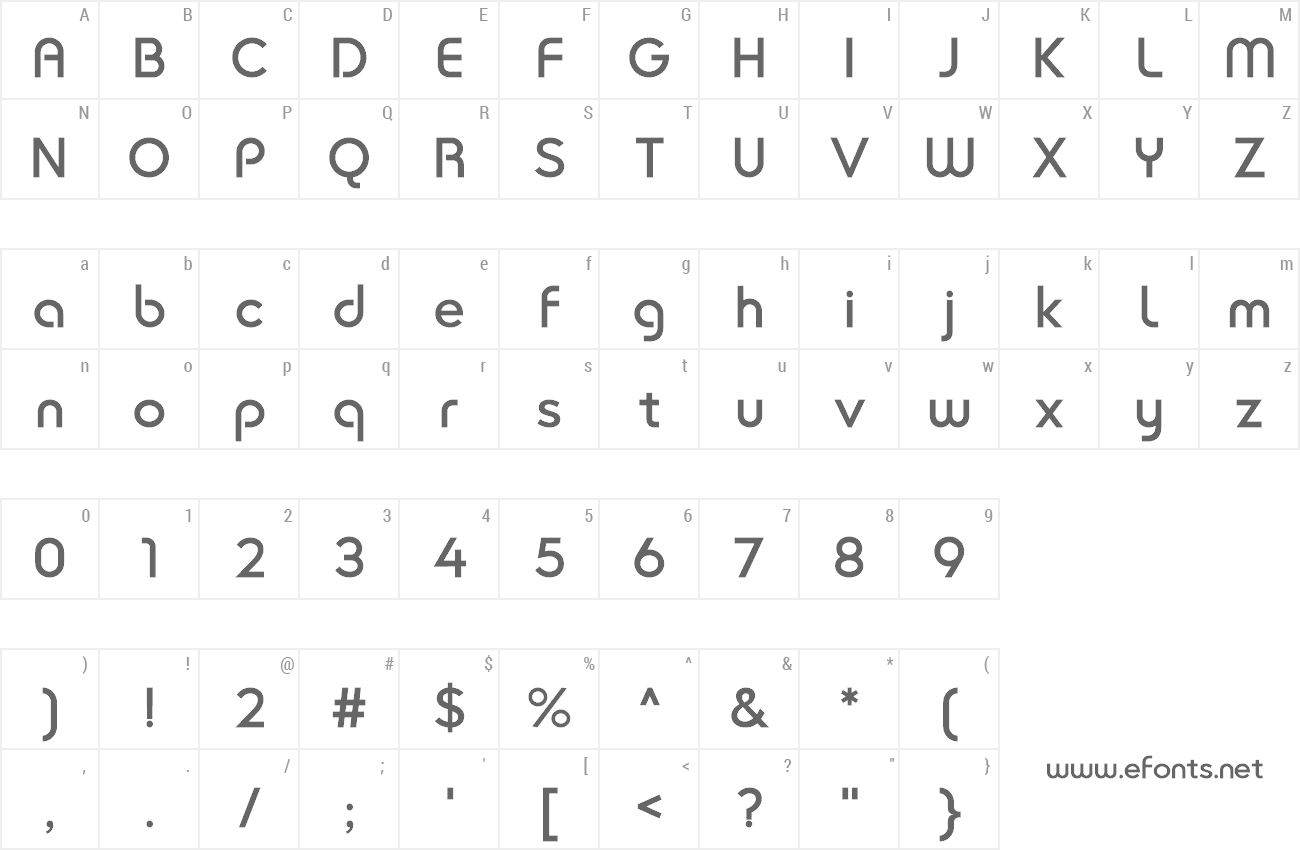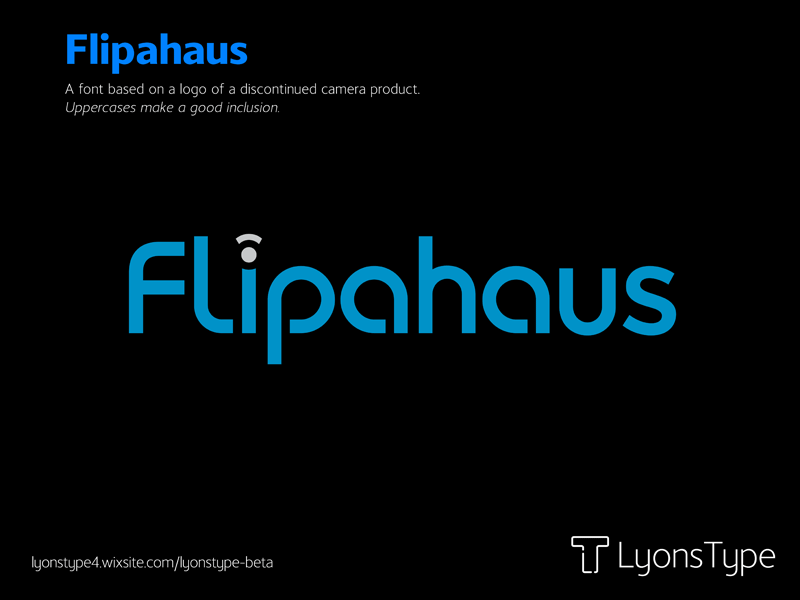
| Font name: | Flipahaus |
| Author: | LyonsType |
| Note by LyonsType | |
A font based on a logo of a discontinued camera product. Uppercases make a good inclusion. |